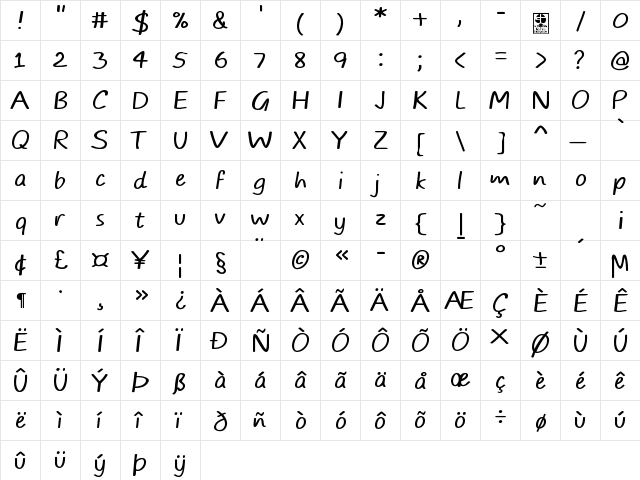
TYPO COMICS Light DEMO Regular
Design Context for TYPO COMICS Light DEMO Typeface
TYPO COMICS Light DEMO trades formality for fun, with bouncy, characterful letterforms that bring warmth and energy to any project.
Well-suited to food and beverage brands with personality, educational materials, and fun-forward identities.
Font Pairing: Pairs well with a rounded or humanist sans for body copy, maintaining the friendly tone without relying on TYPO COMICS Light DEMO to carry extended reading.
Pro Tip: Use TYPO COMICS Light DEMO at larger display sizes where its expressive character can land. Pair with a clean, simple sans for body copy to maintain readability.